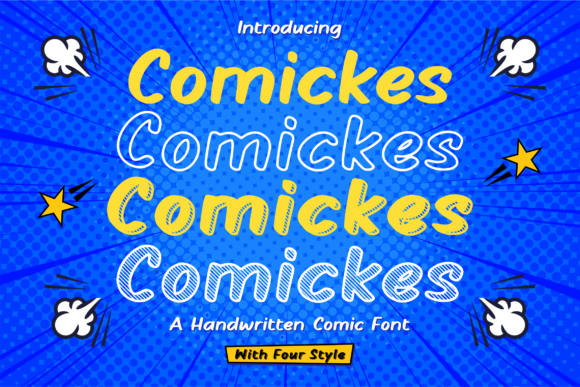
Immerse yourself in the captivating world of Comickes Font, where every character dances with playful energy, evoking a nostalgic charm that will elevate your designs to extraordinary heights. From the vibrant packaging of your products to the captivating covers of your magazines, Comickes Font adds an instant touch of whimsy and delight.
Crafted by the skilled hands of allouse.studio, Comickes Font seamlessly blends the retro appeal of comic book lettering with a modern, sophisticated twist. Its thick, rounded strokes exude a sense of warmth and friendliness, while its bouncy rhythm creates a dynamic and engaging visual experience.
Whether you're a seasoned designer or just starting your creative journey, Comickes Font empowers you to unleash your imagination and captivate your audience. Dive into the boundless possibilities of this display font and discover why it's the perfect choice for adding a touch of fun and personality to any project.
With Comickes Font, you'll effortlessly create eye-catching headlines that demand attention, playful logos that leave a lasting impression, and enchanting social media posts that ignite engagement. Its versatility knows no bounds, making it an indispensable tool for any designer seeking to add a touch of magic to their work.
Step into the world of Comickes Font today and let its playful spirit infuse your designs with an unforgettable charm. From branding projects that spark joy to wedding invitations that celebrate love, Comickes Font will transport you to a realm of creative possibilities where imagination knows no limits.